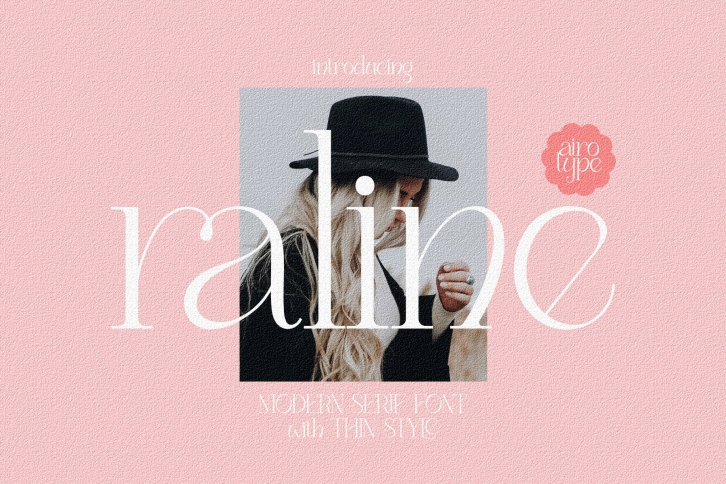
Raline is a gorgeous font that was realeased on June 9, 2022. The font can be used in many style contexts and design environments. Perfect for invitations, magazines, websites, logos, and more! It was designed by Airotype and the file size is 10.24 MB. Thanks for checking out this font!